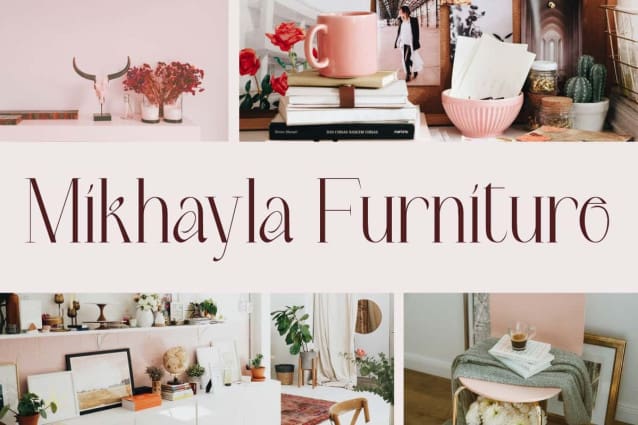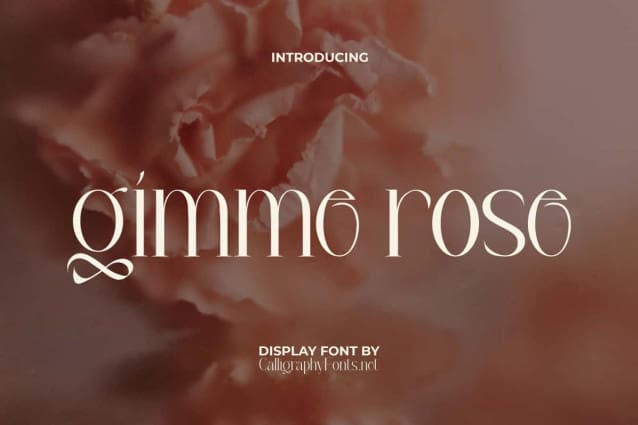
Gimme Rose Font
Gimme Rose Font is an elegant serif display font with a feminine style. This flowering plant typeface combines classy and modern style. This type of font is very suitable for banners, blogs, branding headings, greeting cards, invitations, logos, labels, mockup design, product packaging, stickers, titles, watermarks, websites, and more.